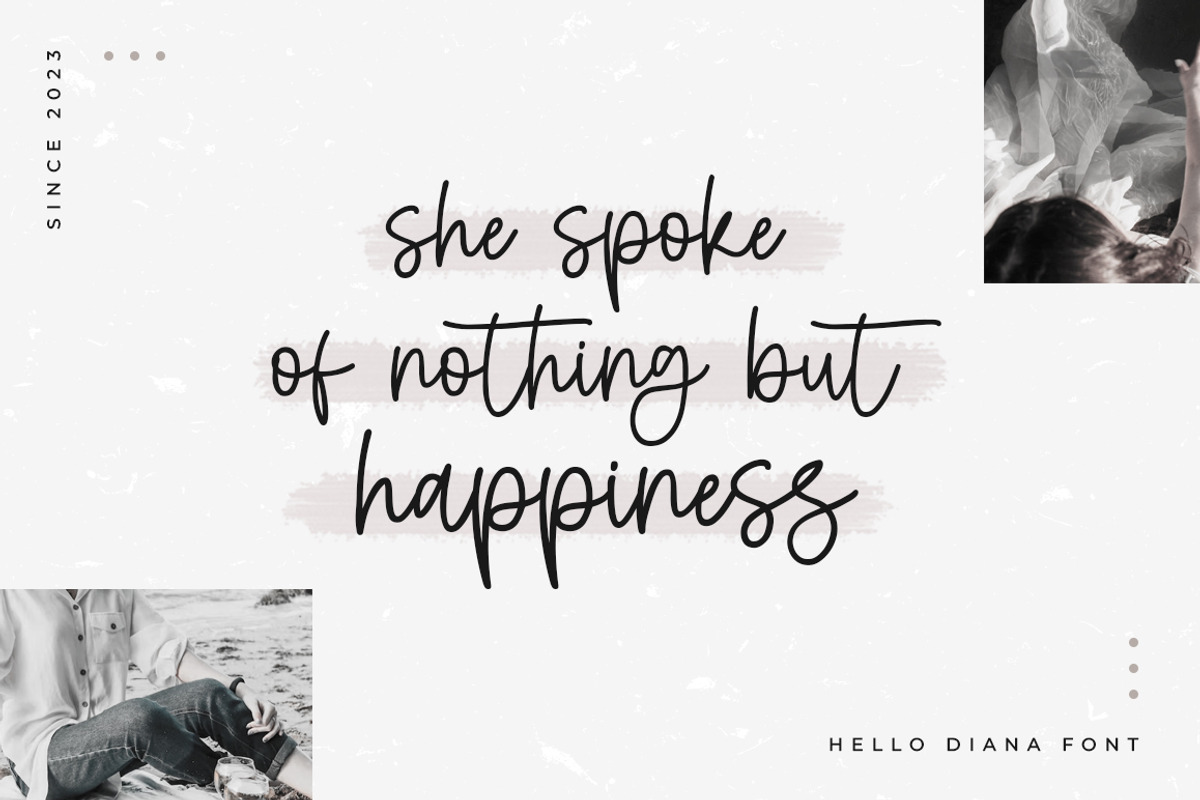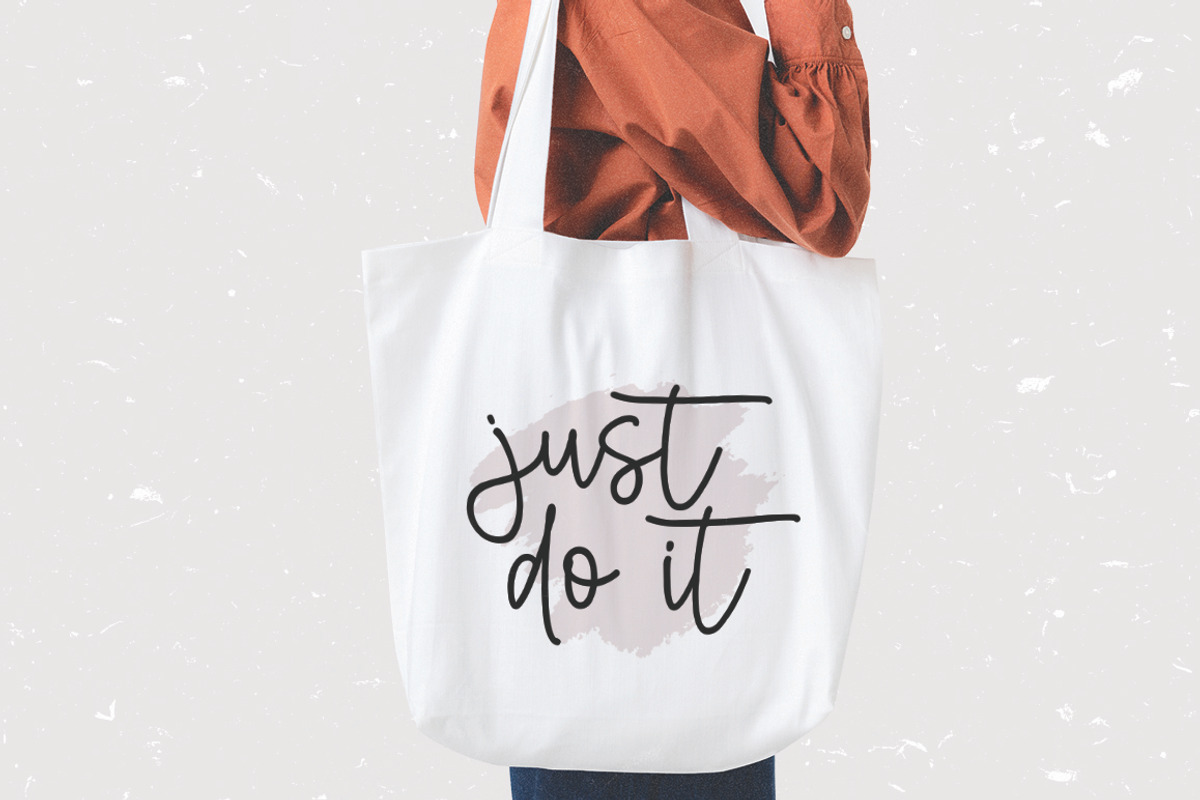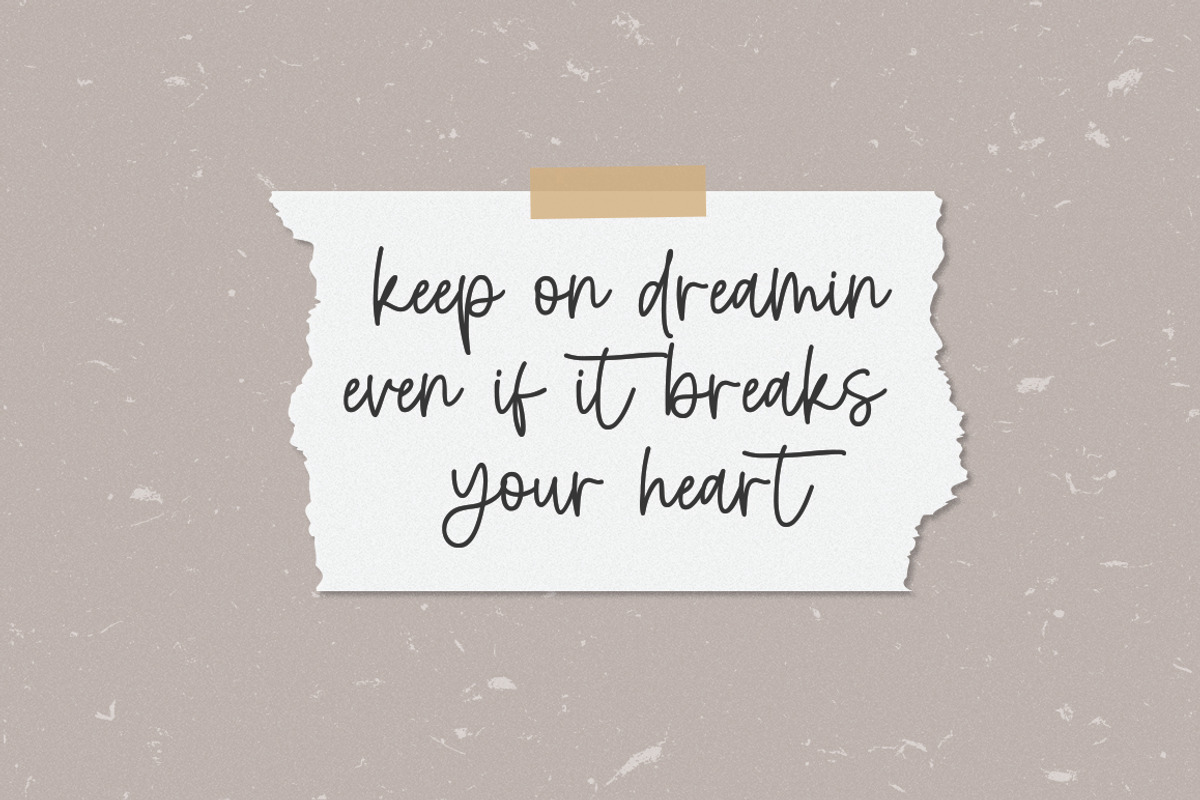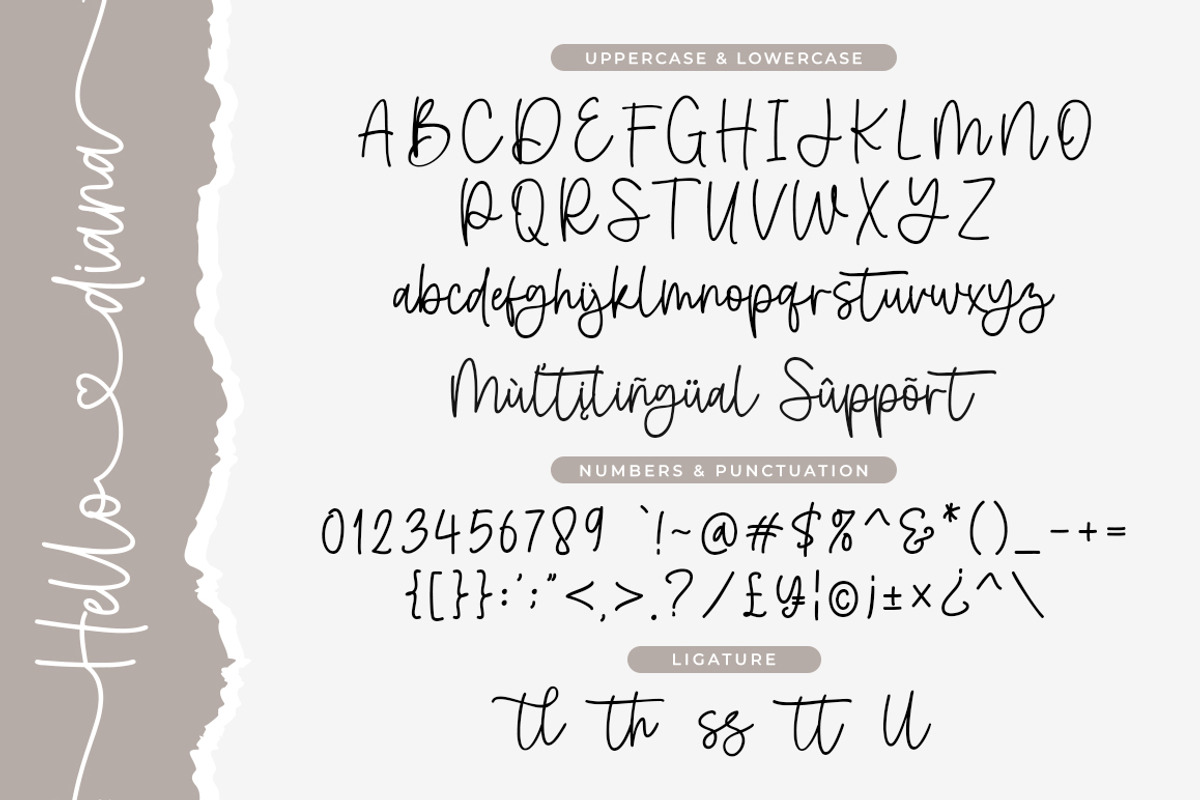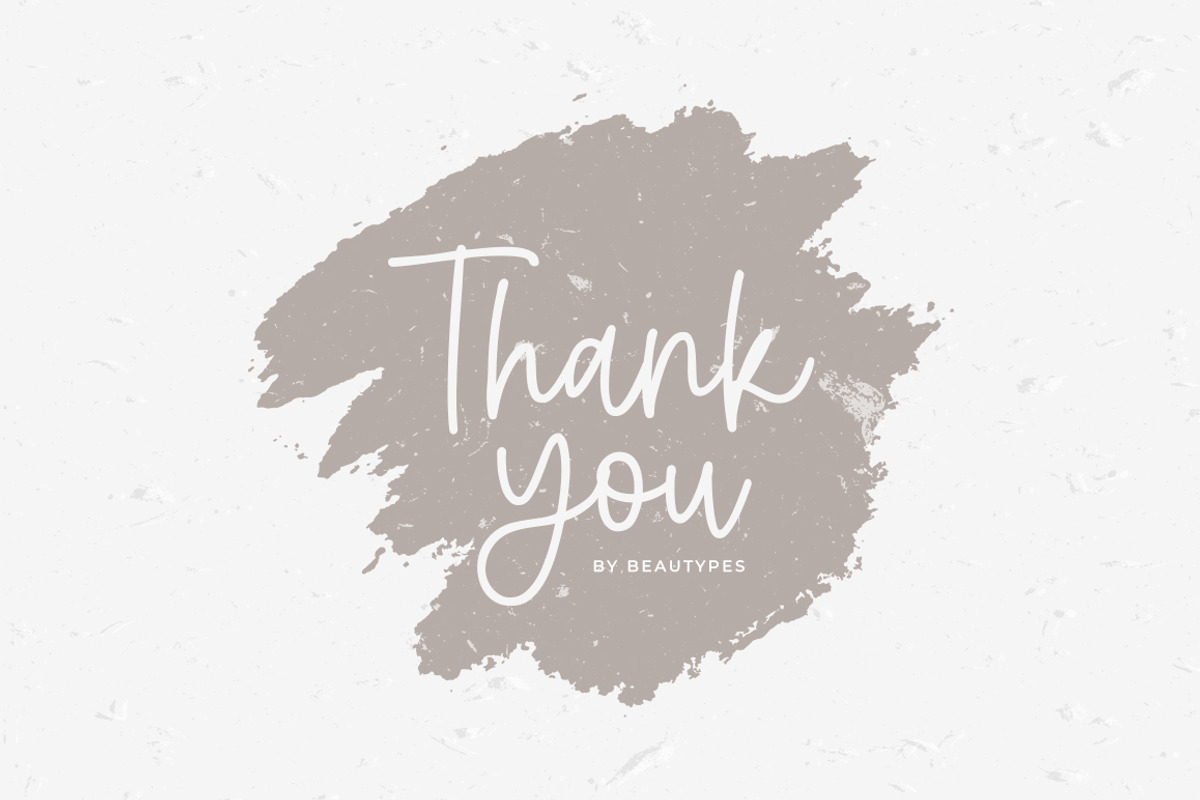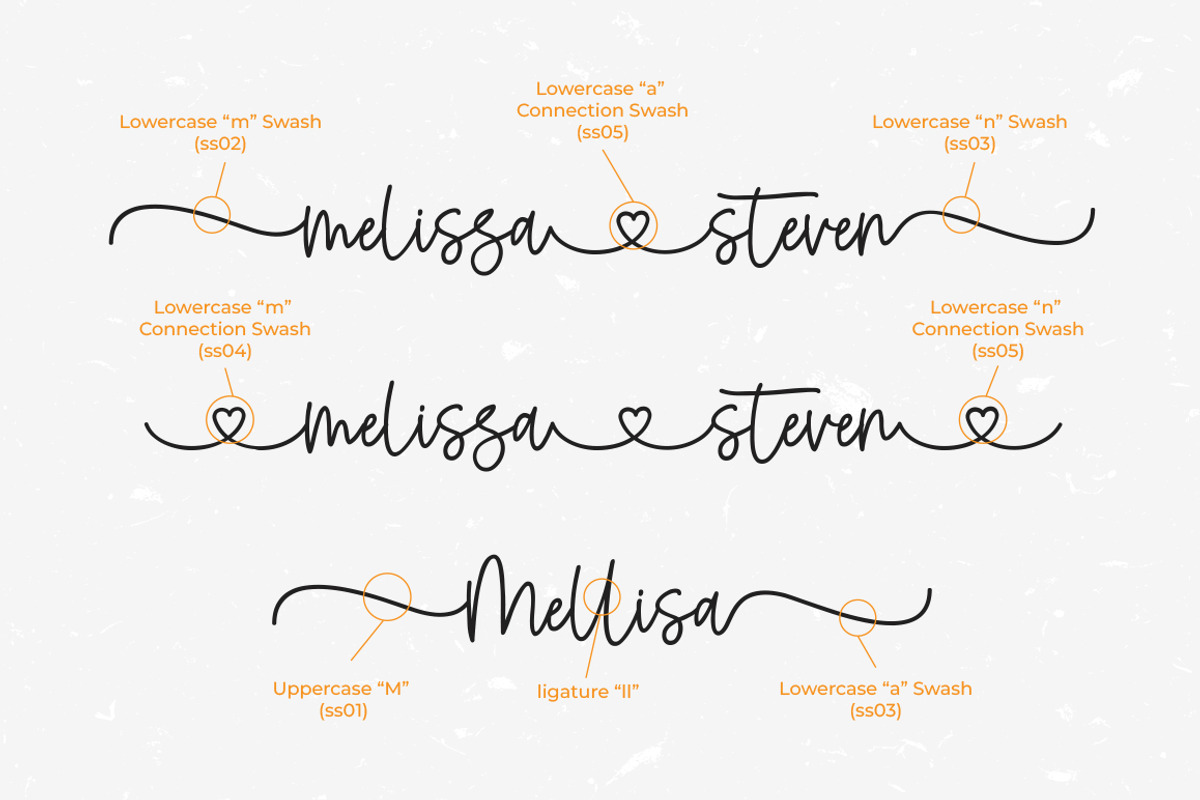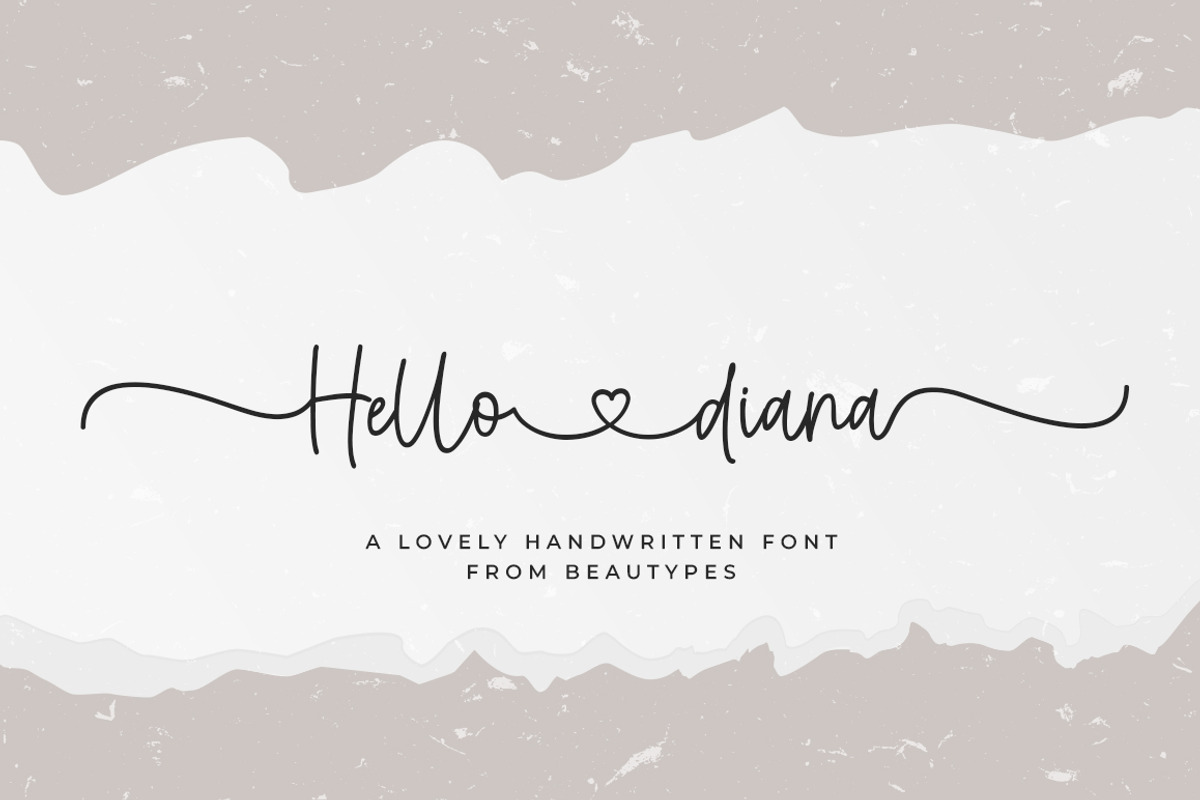
Hello Diana - a lovely handwritten
Hello Diana is a lovely handwritten font, described by an elegant touch, perfect for your favorite projects. It looks stunning on wedding invitations, business cards, quotes, thank you cards, greeting cards, Branding, logos, magazine, marketing materials and every other design which needs a handwritten touch.